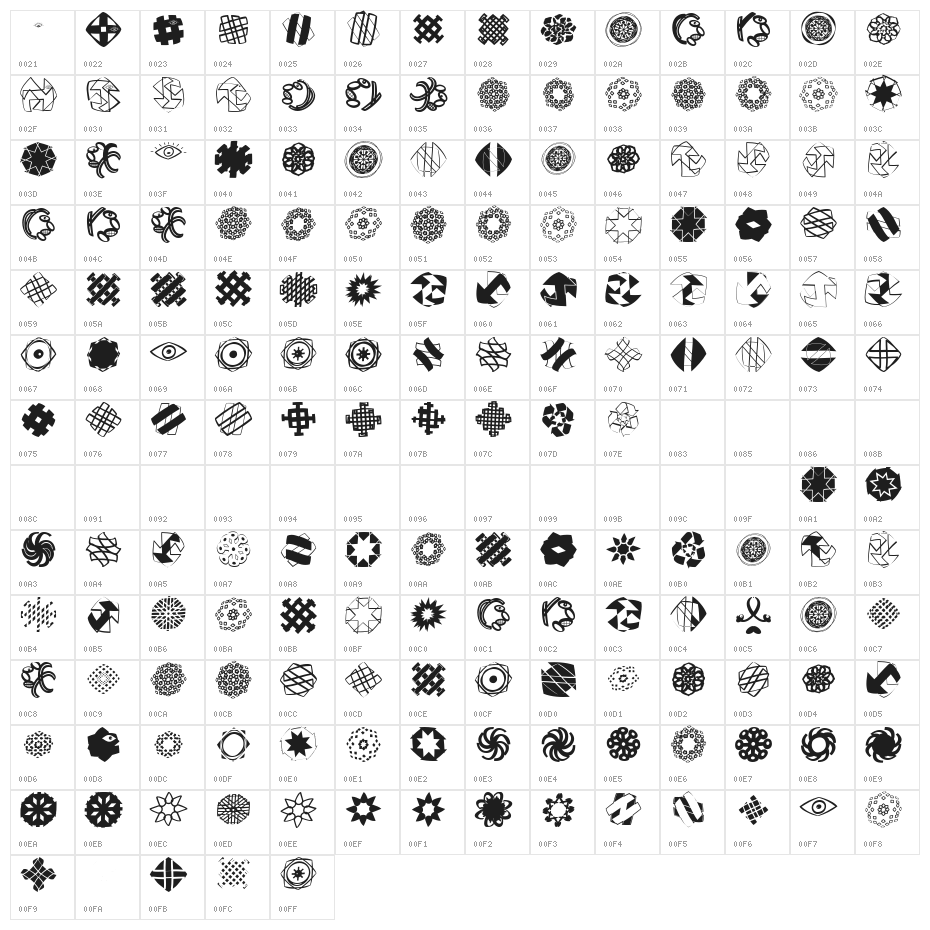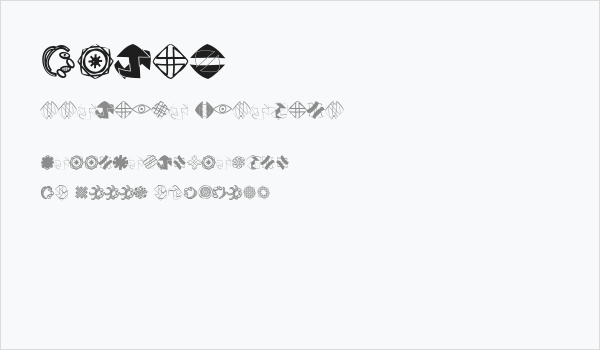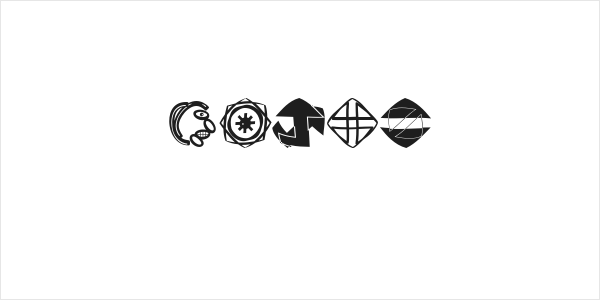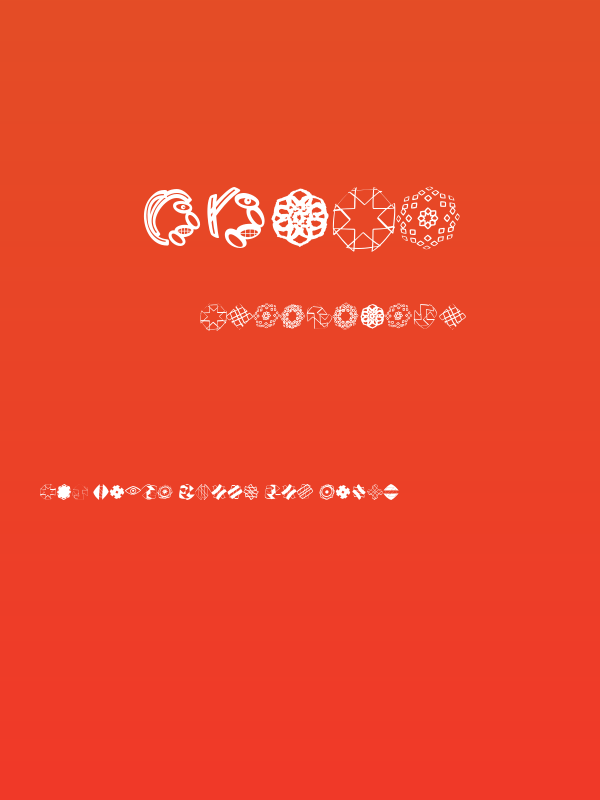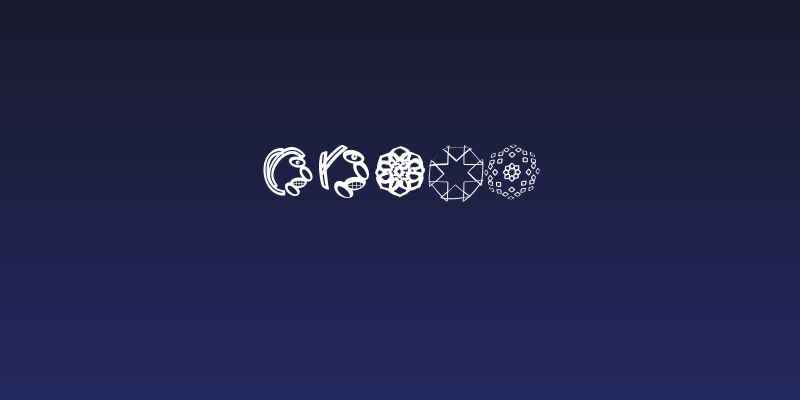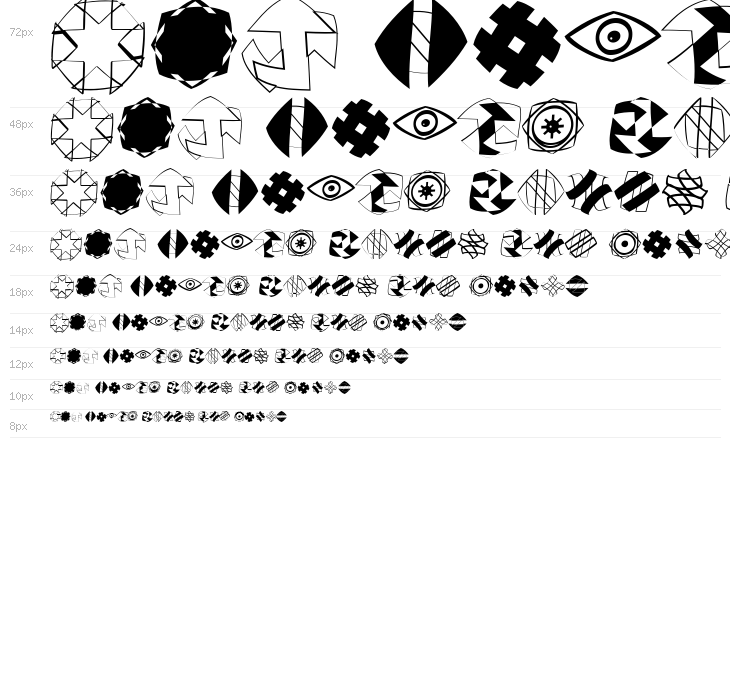
Klats Font
Klats Description
Highly decorative and abstract symbol set featuring geometric and organic shapes, with each character represented by a unique, intricate design rather than traditional letterforms or numerals.
| Overall Style | Decorative, Abstract, Modern |
| Use Case | Logos, Posters, Decorative elements, Art installations |
| Proposed Projects | Branding, logo design, pattern creation, decorative borders, art projects, visual puzzles. |